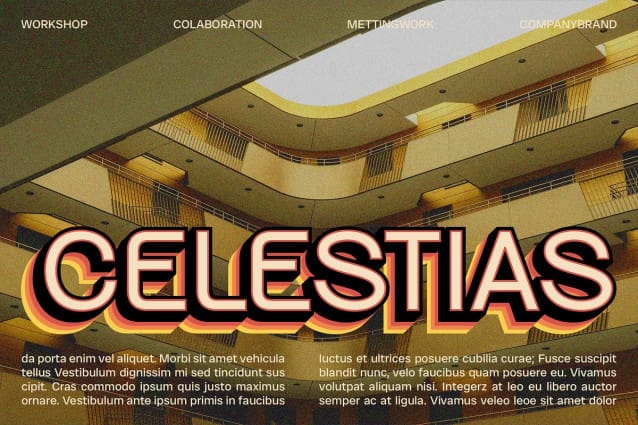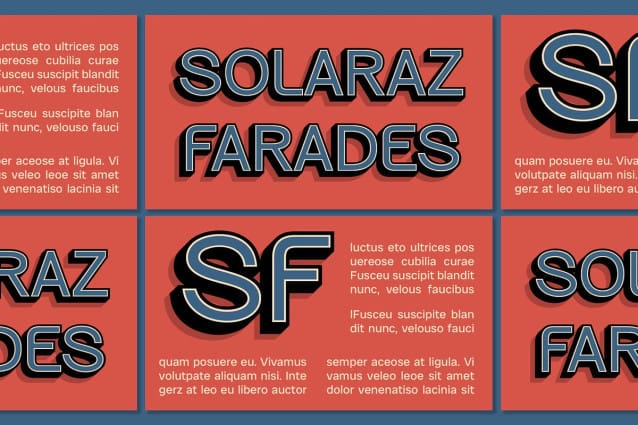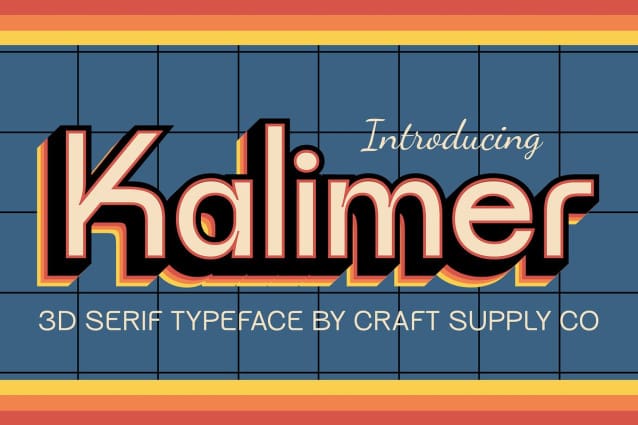
CS Kalimer 3d Font
CS Kalimer 3D Font is a sans-serif font that combines modern style with a 3D dimensional effect. Its clean lines and 3D effect make it suitable for designs aiming to highlight text with a dimensional and modern appearance.
Ideal for Various Designs Perfect for logos, titles, promotional graphics, and other projects, this CS 3D font ensures your text stands out and commands attention. Its 3D effect enhances the visual appeal, making it an excellent choice for designs that require a font with a strong and attractive look.
Versatile and Impressive Despite its modern aesthetic, CS Kalimer 3D remains versatile and impressive. Its sans-serif format makes it suitable for a wide range of projects where a font that combines modernity with a 3D effect is essential for making a statement.
Perfect for Adding a Modern Touch CS Kalimer 3D is ideal for projects requiring a font with a modern touch. Whether you’re designing a logo, title, or promotional graphic, this font will undoubtedly add a distinct and memorable element to your designs.